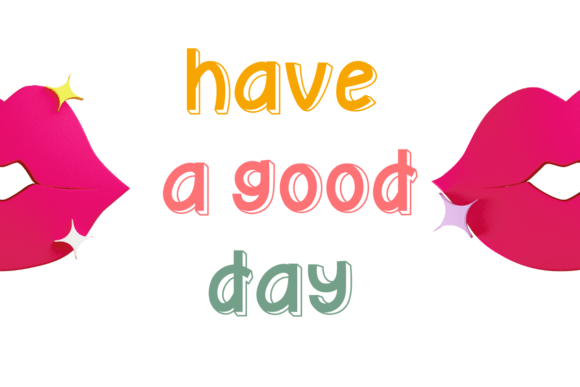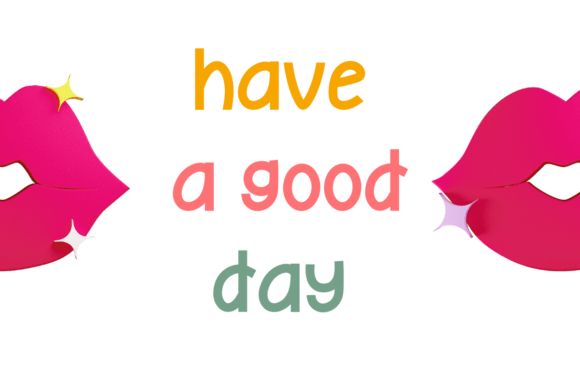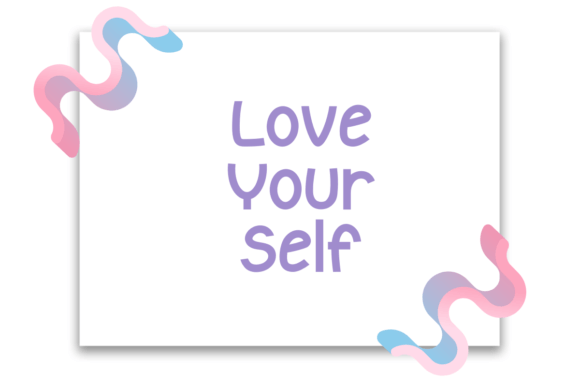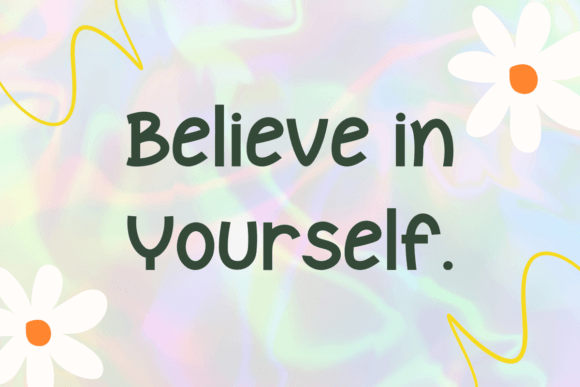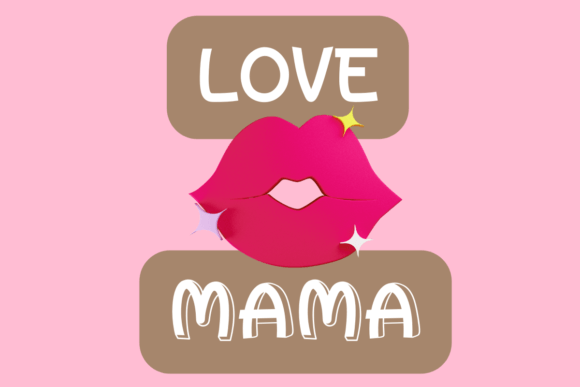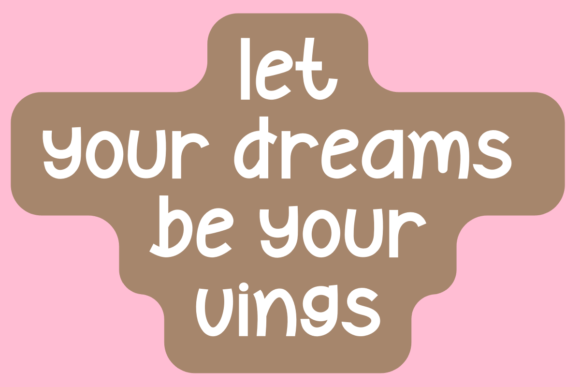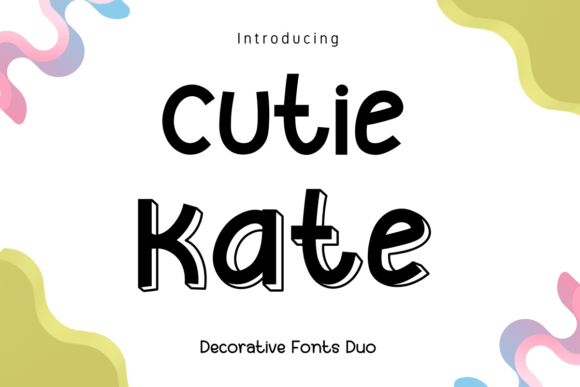
Introducing Cutie Kate Duo Font: The Ultimate Cute and Fun Font for Designers and Crafters
Are you tired of using the same old fonts in your designs? Look no further! Cutie Kate Duo Font is here to take your creative projects to the next level. This adorable font duo is perfect for designers, crafters, and anyone looking to add a touch of cuteness to their work. In this article, we’ll dive into the features and benefits of Cutie Kate Duo Font, and explore how it can be used to create a wide range of designs.
What is Cutie Kate Duo Font?
Cutie Kate Duo Font is a set of two cute decorative fonts that are designed to be used together to create unique and fun designs. The fonts feature bold styles combined with different elements, resulting in a fresh and playful look. With Cutie Kate Duo Font, you can create a wide variety of designs that are perfect for matching products such as banners, content, mugs, cards, shirts, stationery, social media posts, and more!
Key Features of Cutie Kate Duo Font
- Two font styles: Cutie Kate Duo Font comes with two font styles that can be used together to create a wide range of designs.
- Bold and playful: The fonts feature bold styles combined with different elements, resulting in a fresh and playful look.
- Cute and fun: The fonts are designed to be cute and fun, making them perfect for designs that require a playful touch.
Benefits of Using Cutie Kate Duo Font
So, why should you use Cutie Kate Duo Font in your designs? Here are just a few benefits:
- Add a touch of cuteness: With Cutie Kate Duo Font, you can add a touch of cuteness to your designs, making them more appealing to your audience.
- Stand out from the crowd: The unique and playful design of Cutie Kate Duo Font will help your designs stand out from the crowd.
- Perfect for a wide range of designs: The fonts can be used to create a wide range of designs, from banners and social media posts to mugs and stationery.
- Easily customizable: The fonts are easily customizable, allowing you to adjust the font size, color, and style to suit your design needs.
How to Use Cutie Kate Duo Font
Using Cutie Kate Duo Font is easy! Here are a few tips to get you started:
- Pair the fonts: Pair the two font styles together to create a unique and playful look.
- Experiment with different colors: Experiment with different colors to find the perfect combination for your design.
- Add graphics and elements: Add graphics and elements to enhance your design and make it more visually appealing.
Design Ideas Using Cutie Kate Duo Font
- Banners and signs: Use Cutie Kate Duo Font to create eye-catching banners and signs for events, sales, and promotions.
- Social media posts: Use the fonts to create engaging social media posts that will grab the attention of your followers.
- Mugs and water bottles: Use Cutie Kate Duo Font to create fun and colorful designs for mugs and water bottles.
- Stationery and cards: Use the fonts to create adorable stationery and cards for special occasions.
- T-shirts and hoodies: Use Cutie Kate Duo Font to create fun and playful designs for t-shirts and hoodies.
| Font Name | Cutie Kate Duo Font |
In conclusion, Cutie Kate Duo Font is a must-have for designers and crafters looking to add a touch of cuteness and fun to their designs. With its bold and playful styles, high-quality design, and ease of use, this font duo is perfect for creating a wide range of designs. Whether you’re working on a commercial project or a personal craft, Cutie Kate Duo Font is sure to bring a smile to your face and make your designs stand out from the crowd.